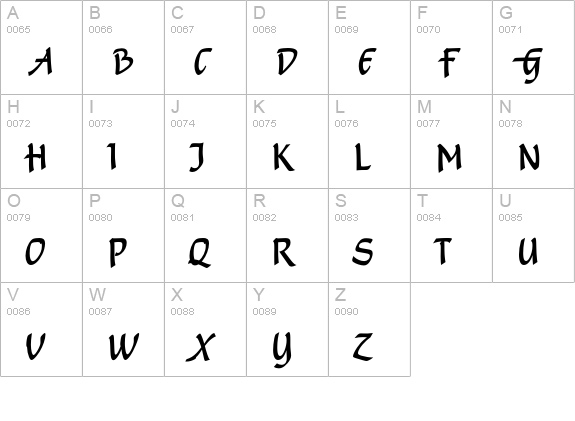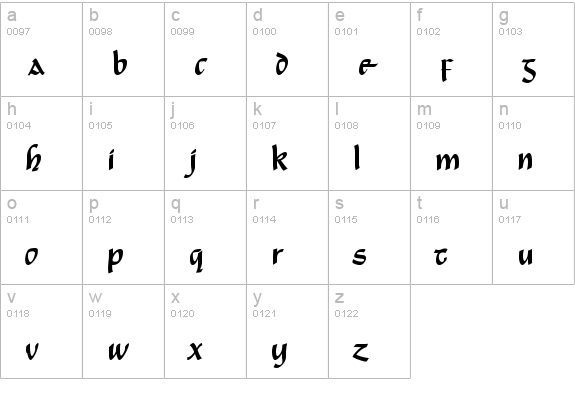
ShamrockEF-AlternateTwo Font Details
ShamrockEF-AlternateTwo is a captivating and versatile font that will add a touch of elegance and charm to any project. With its intricate and ornate design, this font is perfect for creating eye-catching logos, branding materials, and decorative elements. What sets ShamrockEF-AlternateTwo apart is its unique alternate characters, which allow you to create a truly custom look. Whether you're designing a wedding invitation, a book cover, or a website header, this font has the versatility to adapt to any style or theme. But what makes ShamrockEF-AlternateTwo even more special is that it is available for free! That's right, you can download this stunning font without spending a dime. Thanks to its generous creators, FontsMarket.com, you can easily access ShamrockEF-AlternateTwo and start using it in your projects right away. So, why wait? Download ShamrockEF-AlternateTwo now and let your creativity soar. With its exquisite details and free availability, this font is sure to make a lasting impression on your audience.